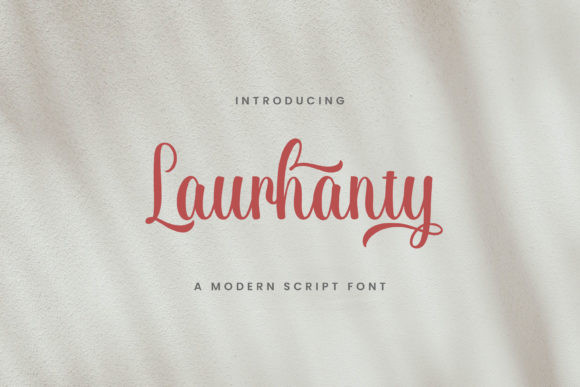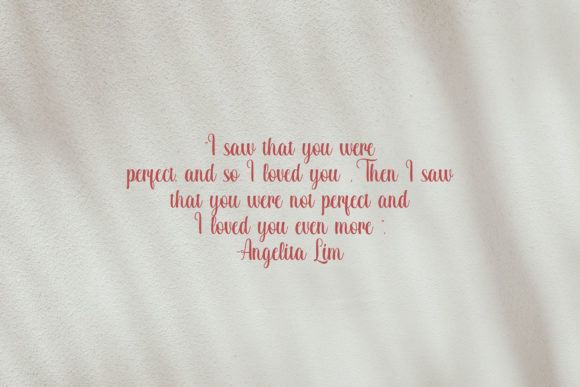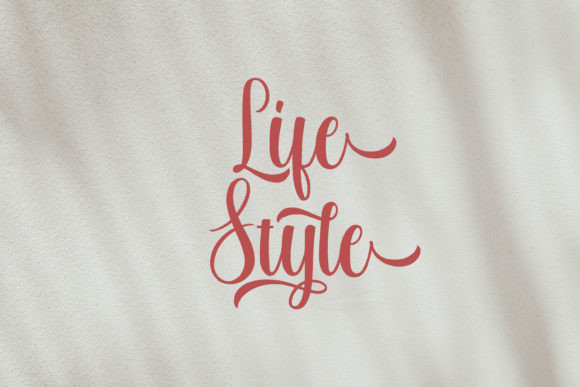
Laurhanty Font
Laurhanty is an elegant script font with a contemporary atmosphere and impeccable form, inspired by timeless classic calligraphy. Not too thin and not too thick, balanced and varied, this font was designed to enhance the beauty of your projects.